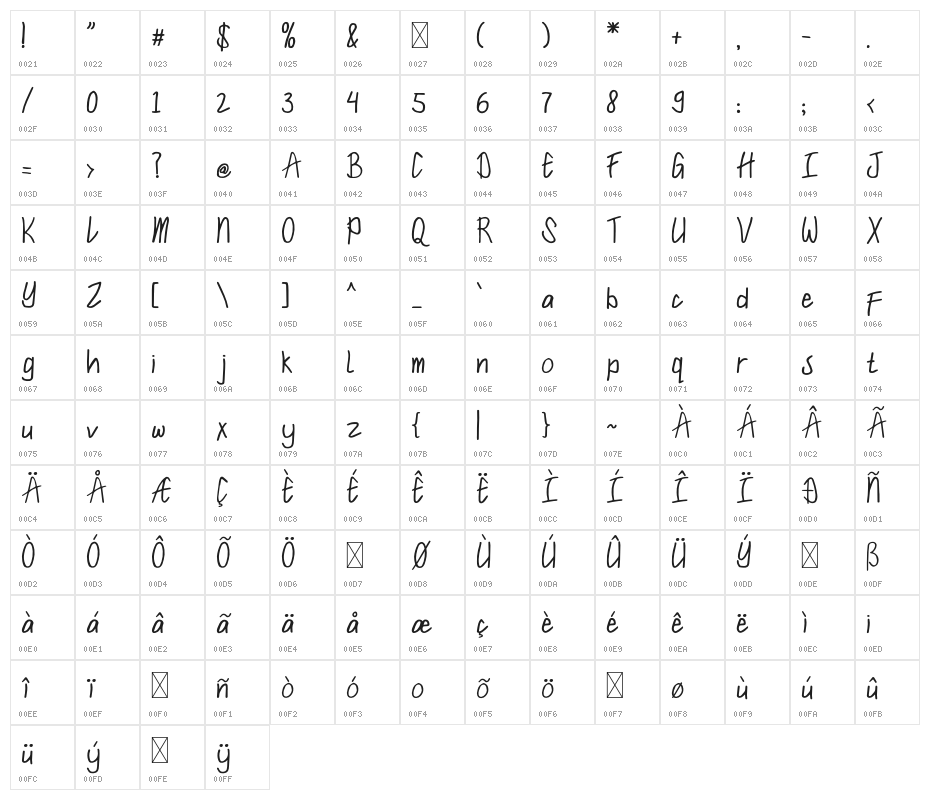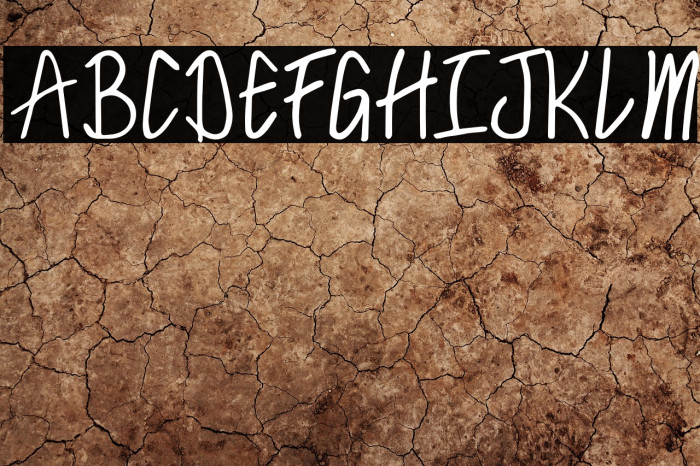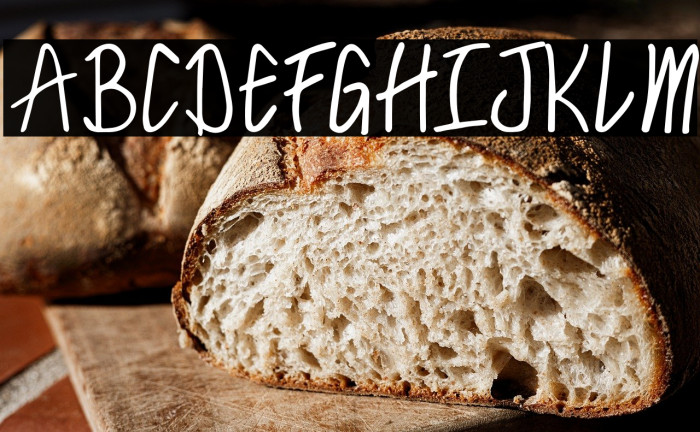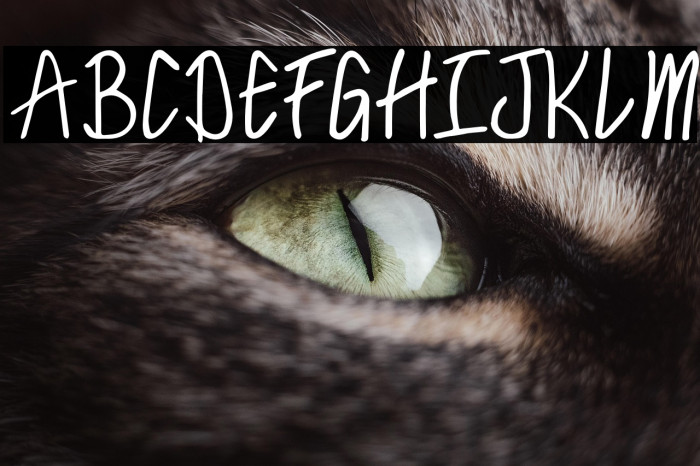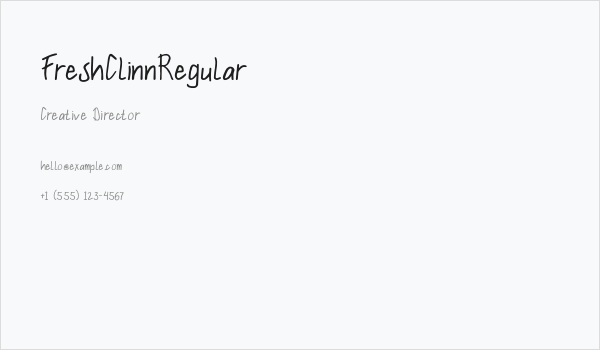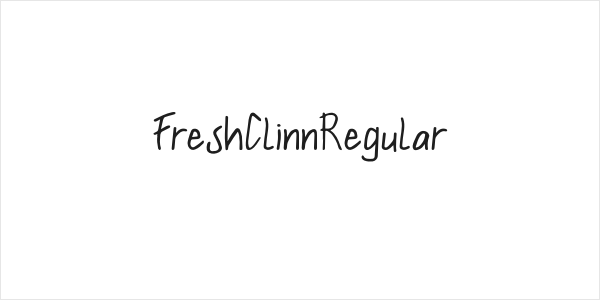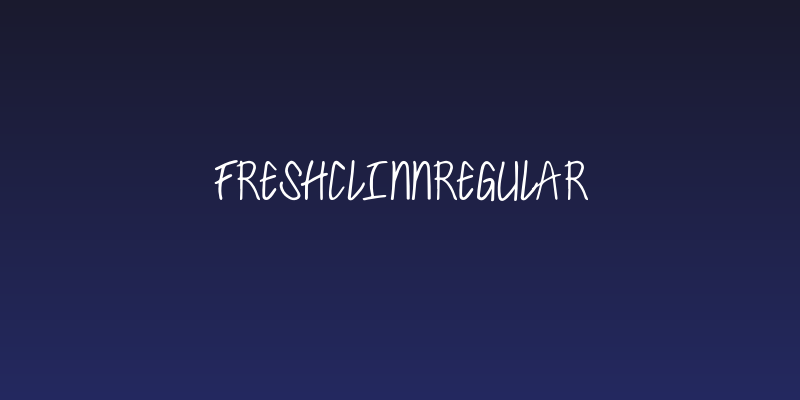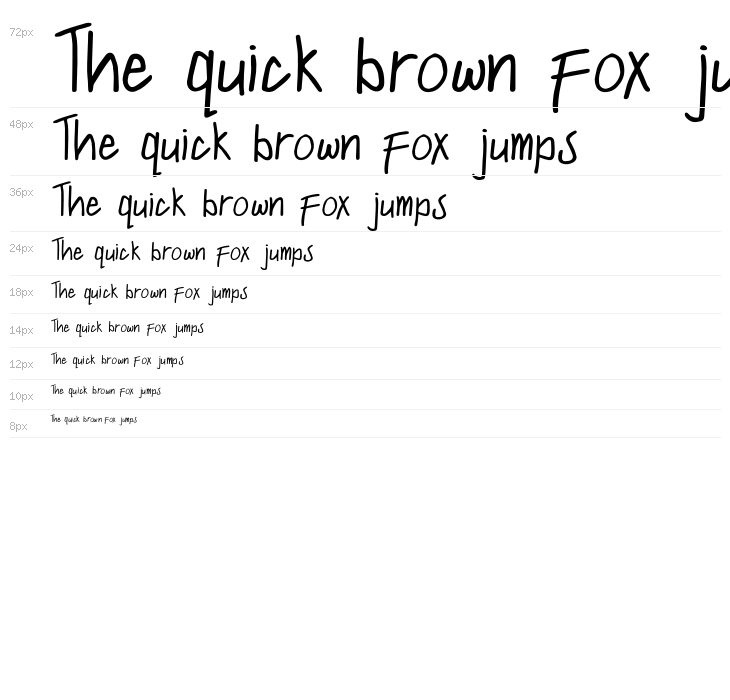
FreshClinnRegular Font
FreshClinnRegular Description
This font features a playful and casual handwritten style, characterized by its irregular strokes and slightly tilted letters. The uppercase and lowercase letters maintain a consistent flow, giving it a cohesive yet informal appearance. The numerals and special characters complement the alphabet with a similar whimsical touch. The overall design is approachable and friendly, making it suitable for projects that require a personal or informal tone.
Overall StyleCasual
Use CaseHeadlines, Informal text, Creative projects
Proposed ProjectsIdeal for greeting cards, children's books, personal blogs, and informal branding.